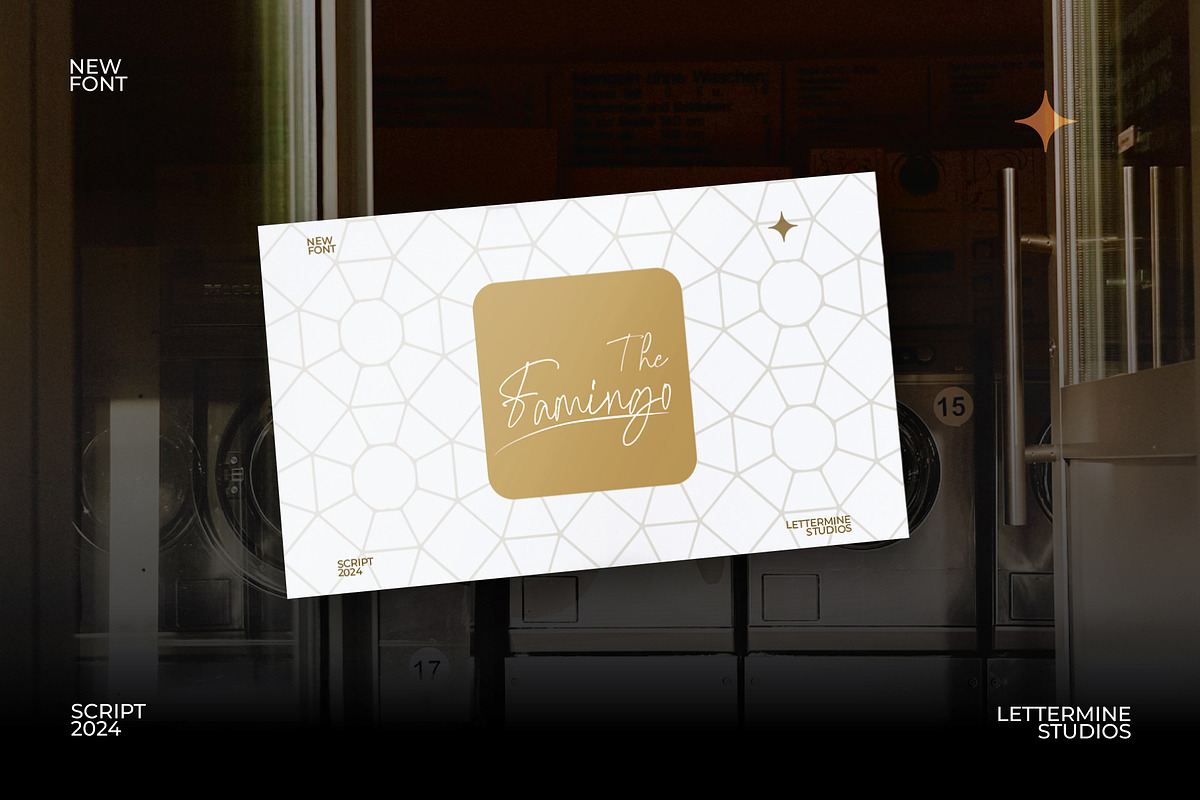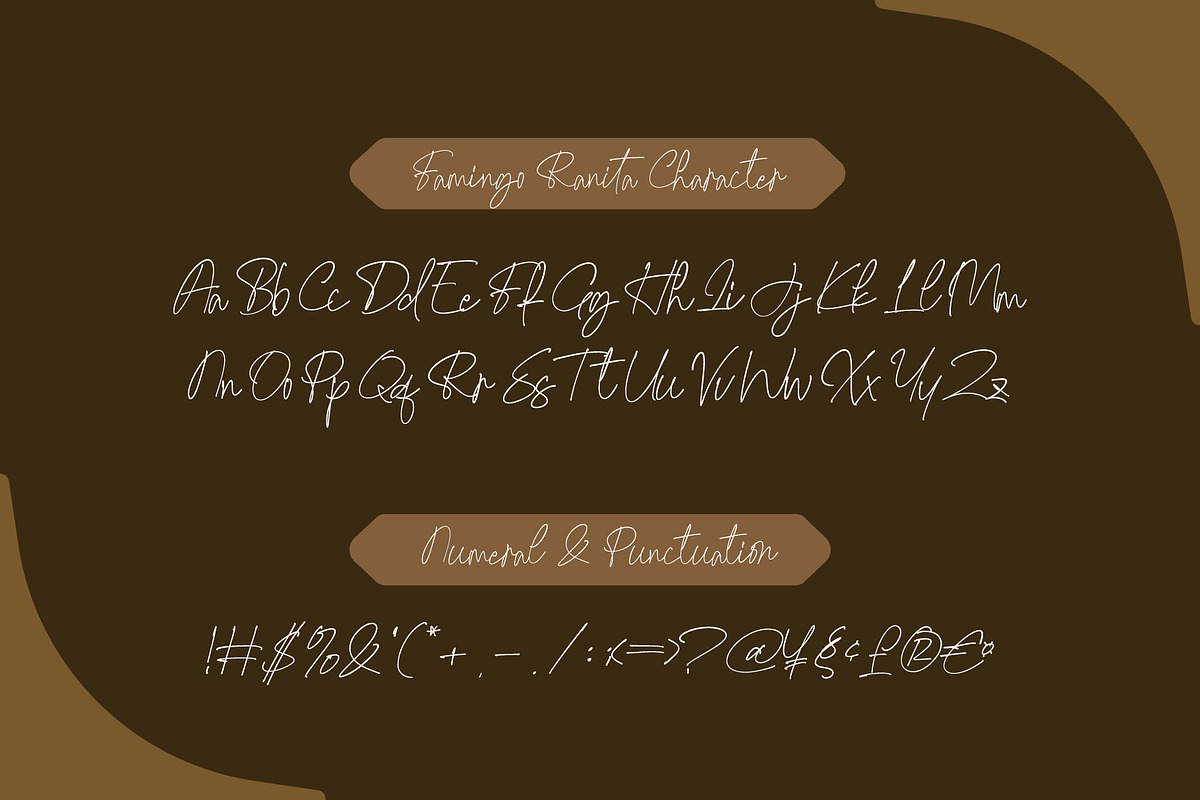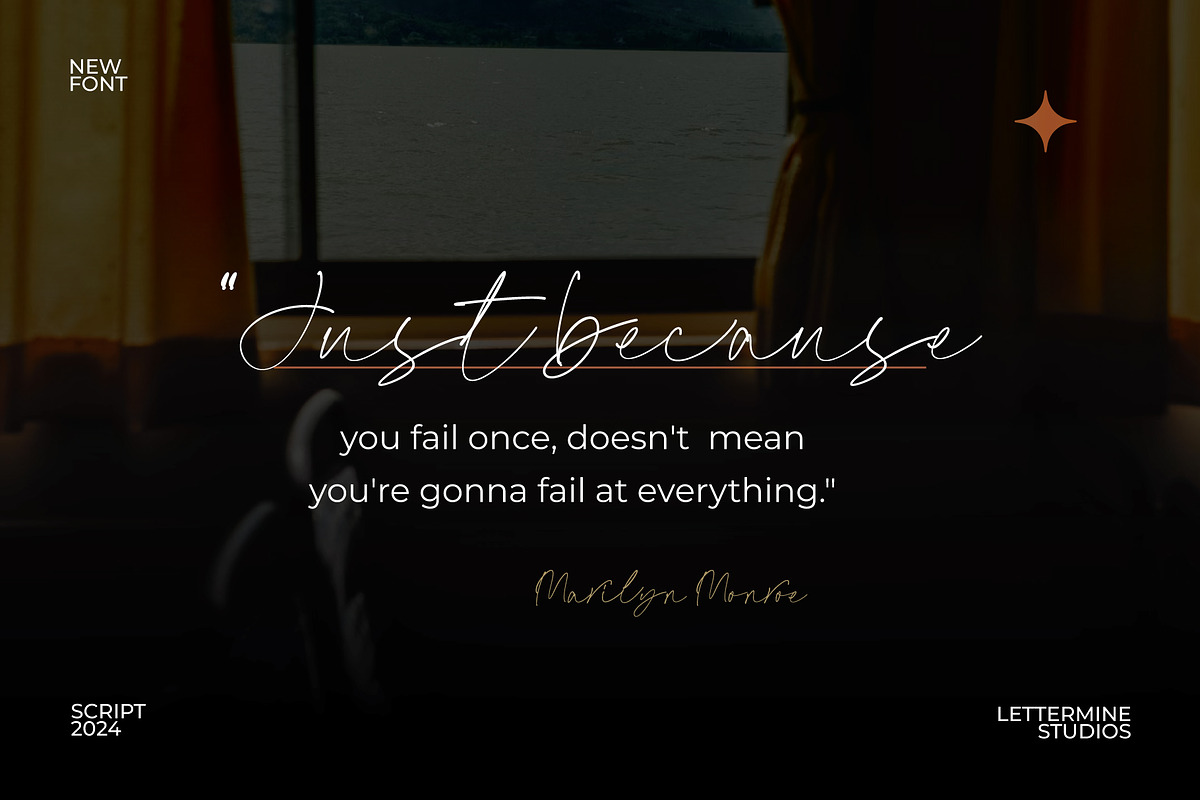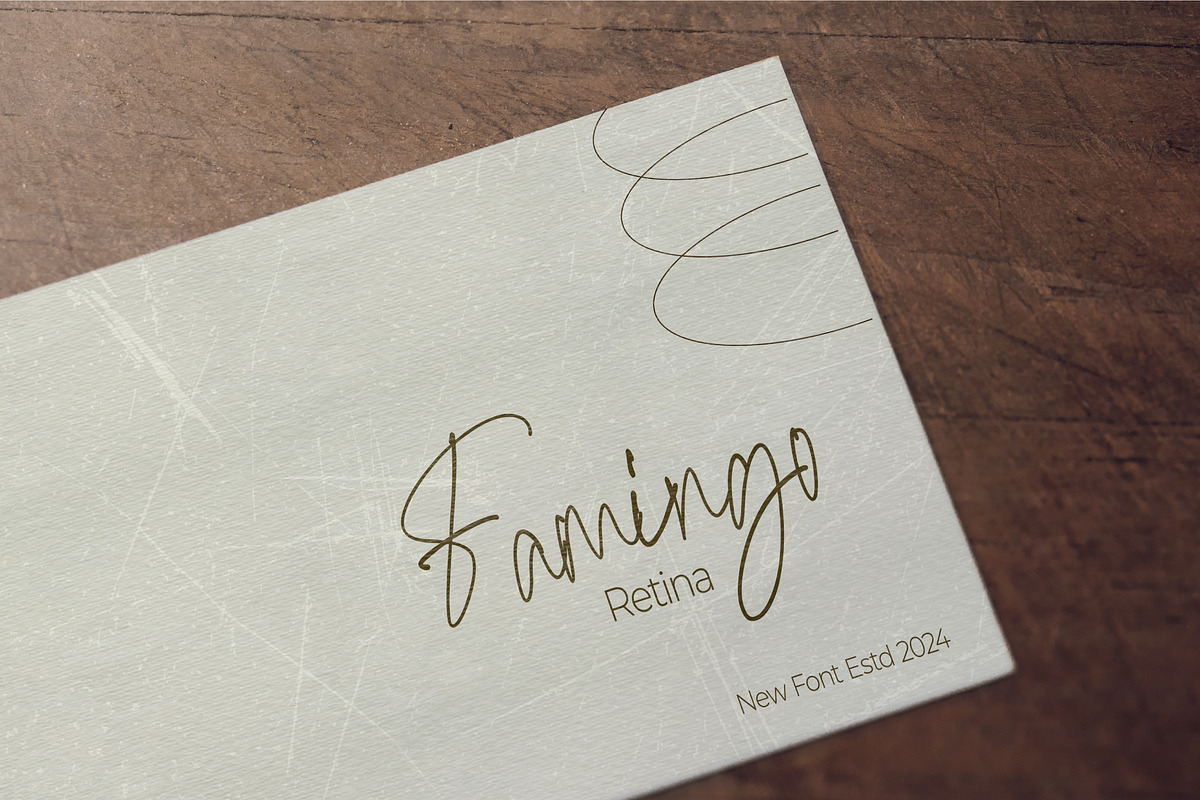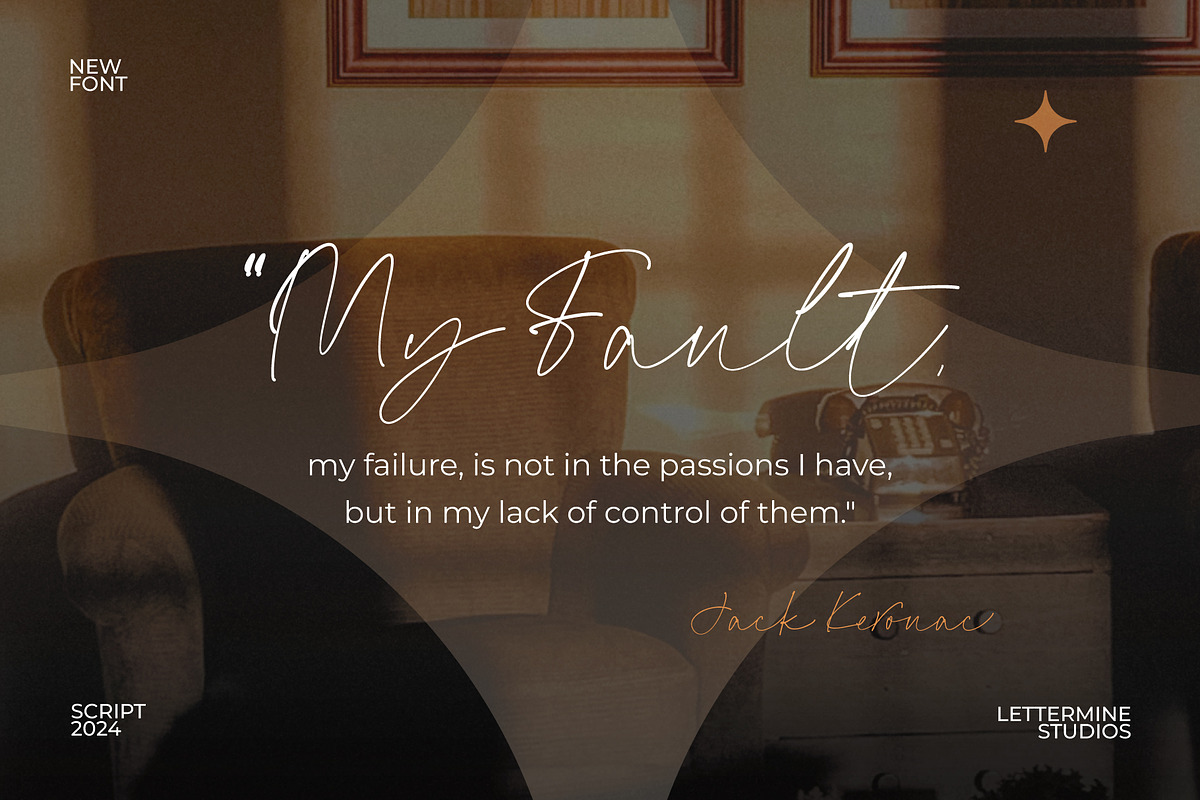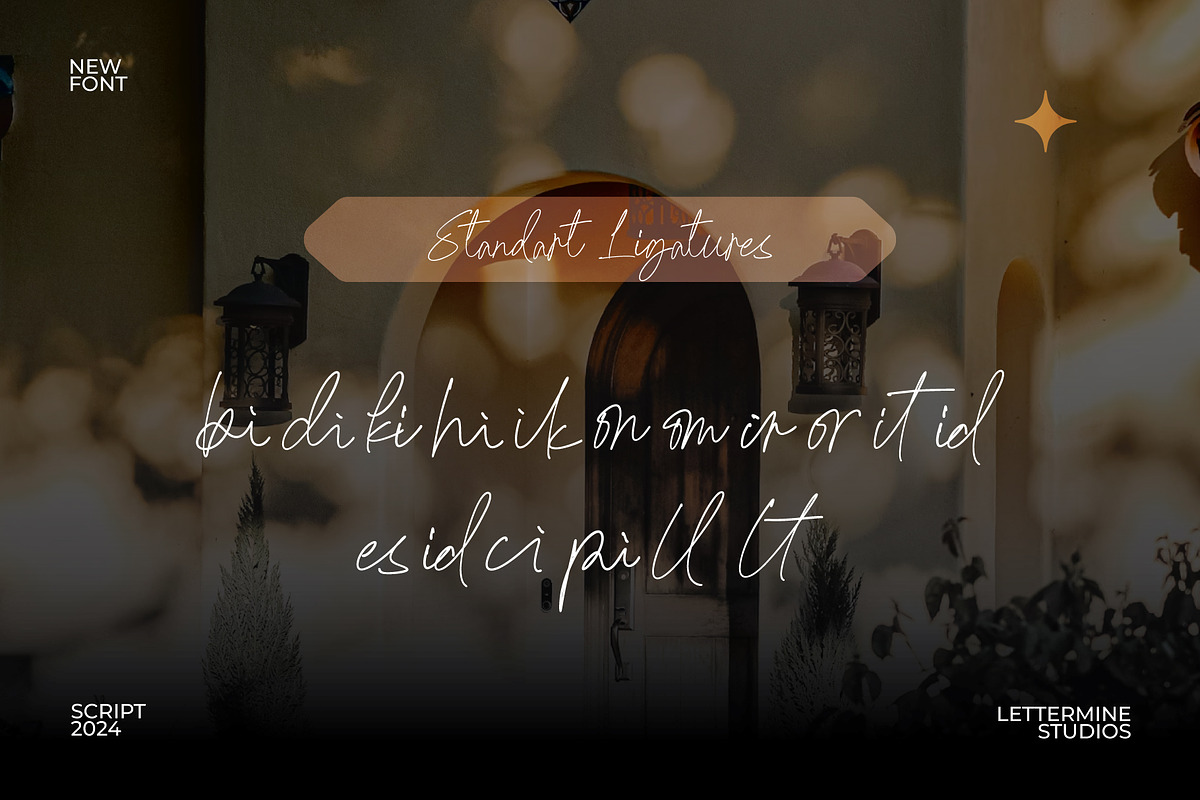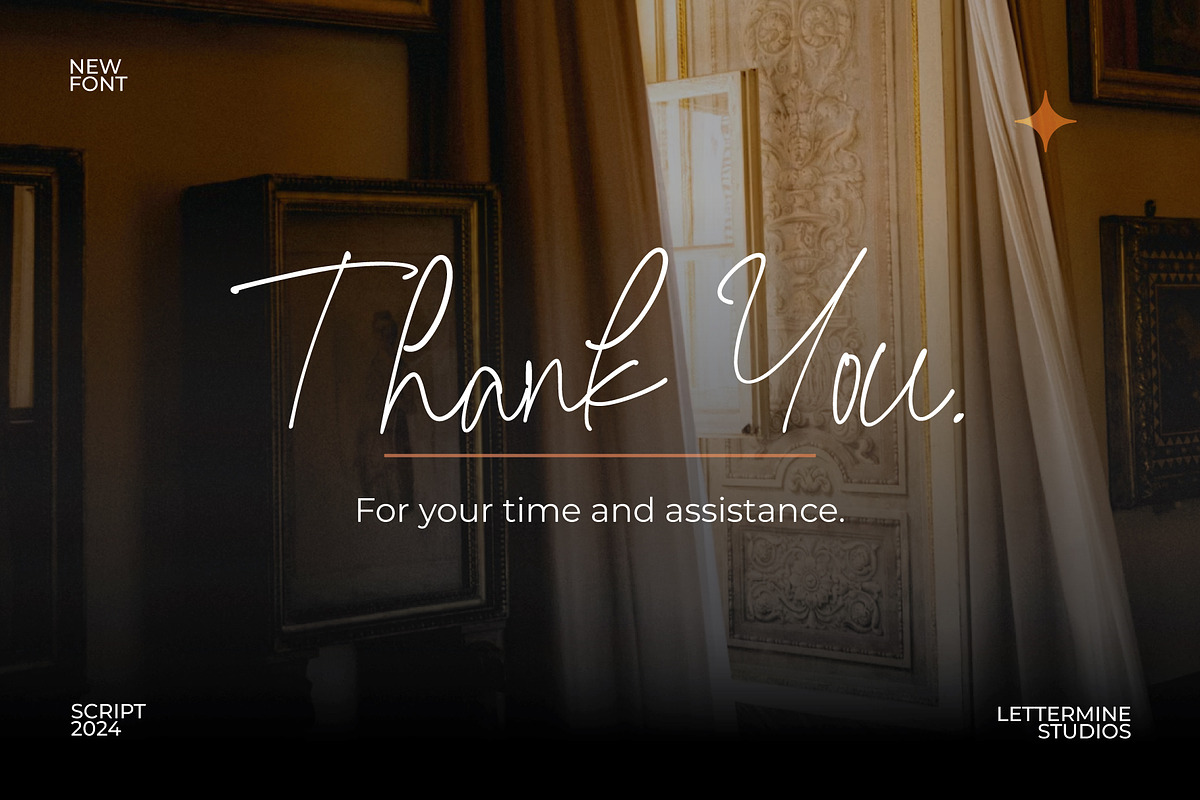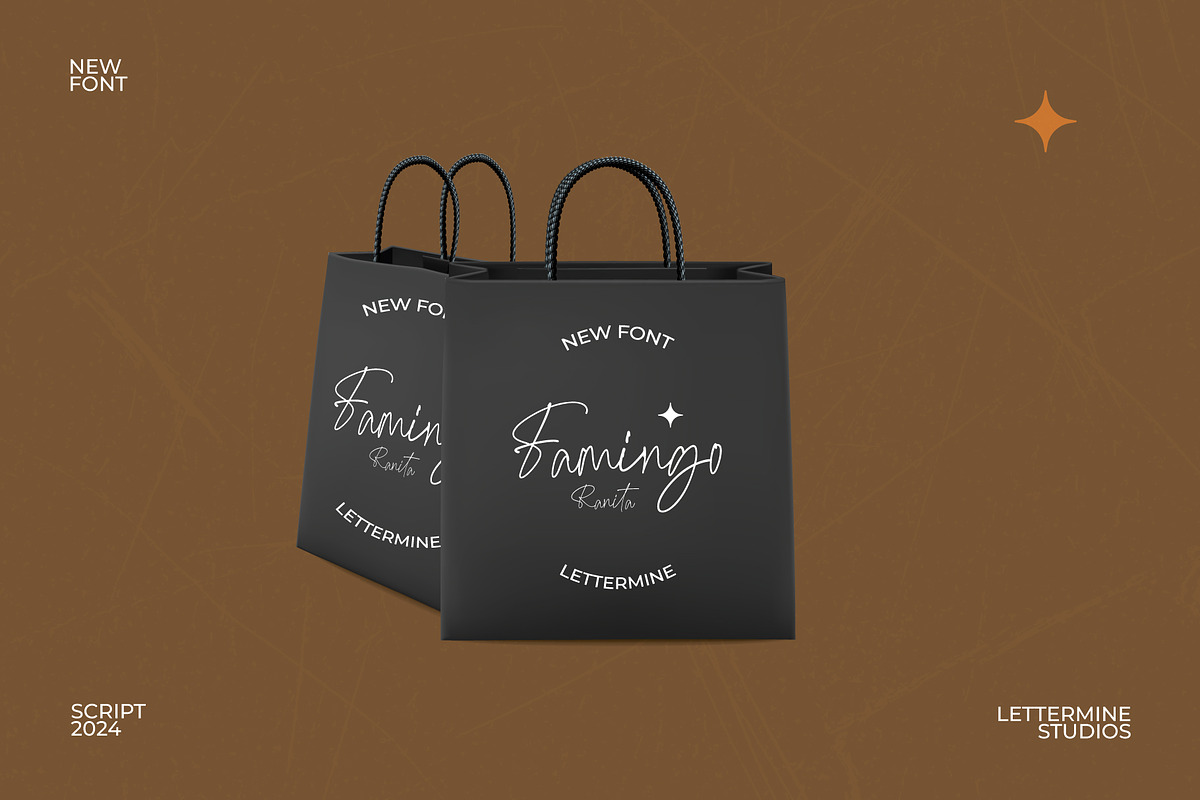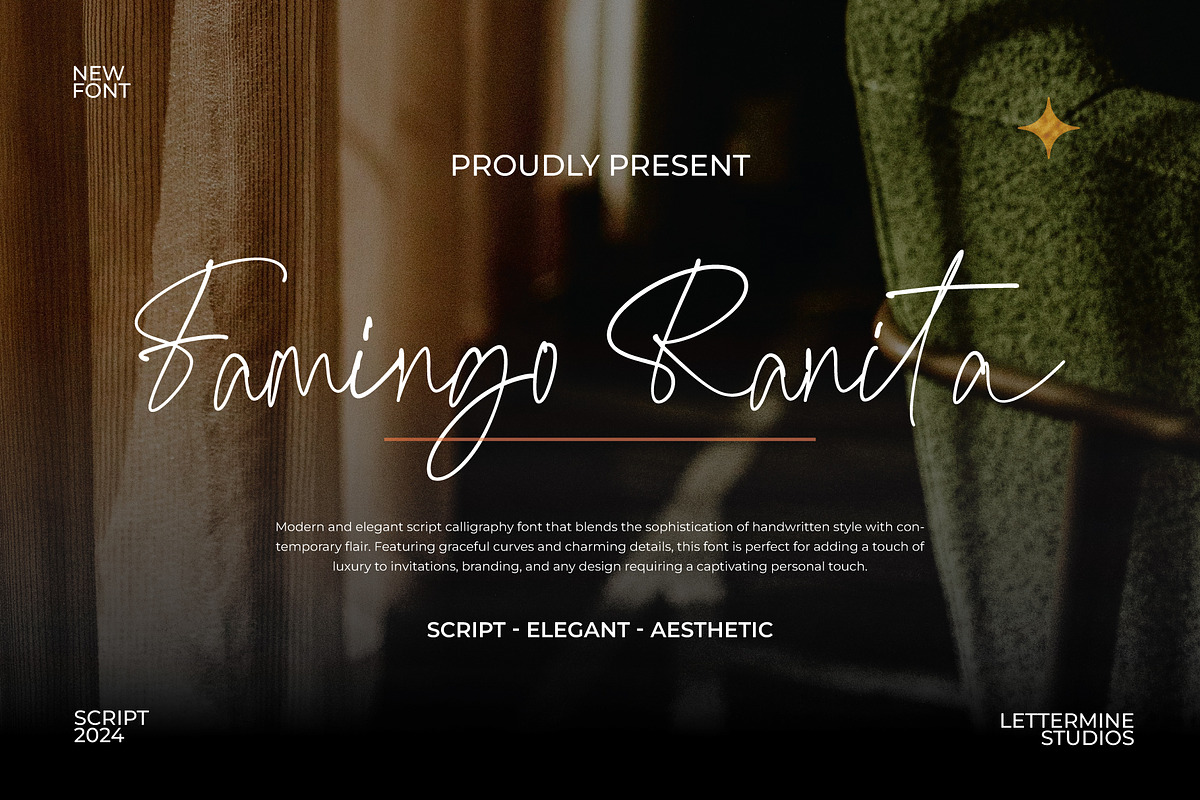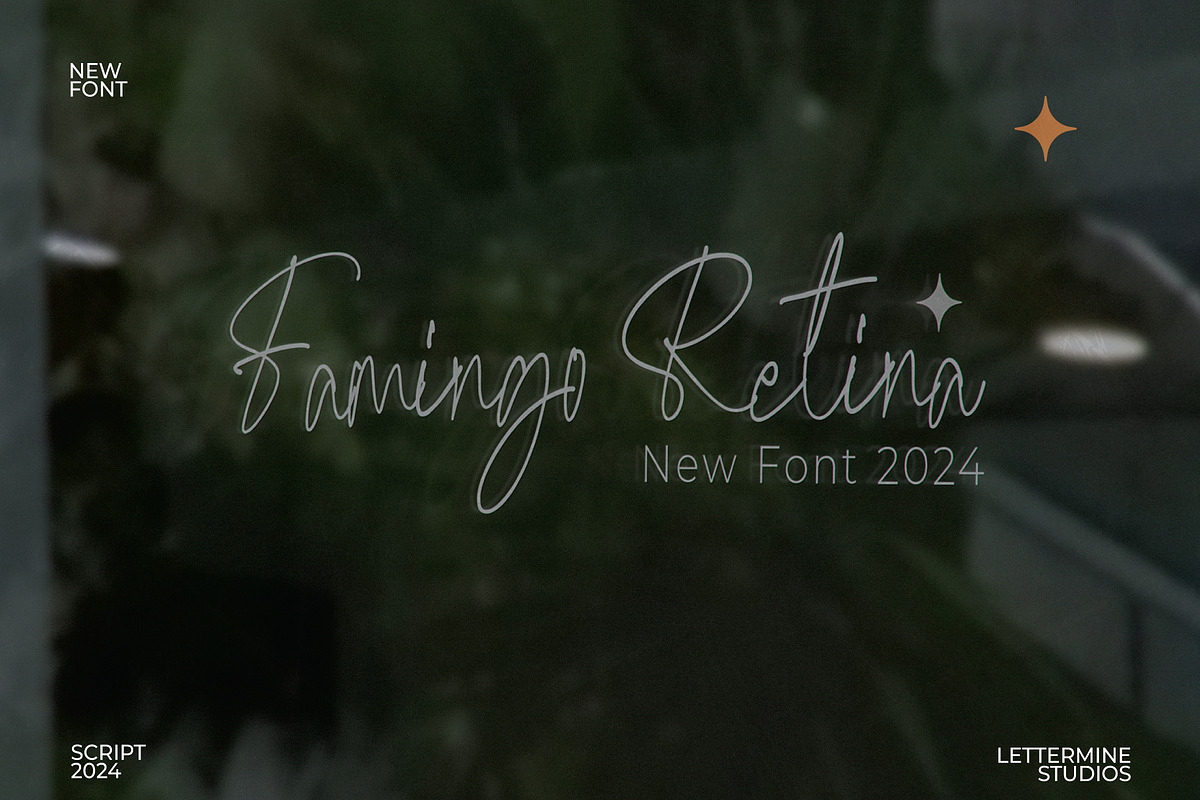
Famingo Ranita - Elegant Script
FAMINGO RANITA – Elegant Script Font
FAMINGO RANITA is a graceful and refined script font that adds a touch of elegance to any design. With smooth curves and stylish alternates, it’s perfect for making your projects feel sophisticated and polished.
- Uppercase & Lowercase Letters
- Punctuation Included
- Wedding Invitations
- Branding
- Elegant Packaging
- Social Media
- Greeting Cards
Bring an air of elegance to your designs with FAMINGO RANITA.